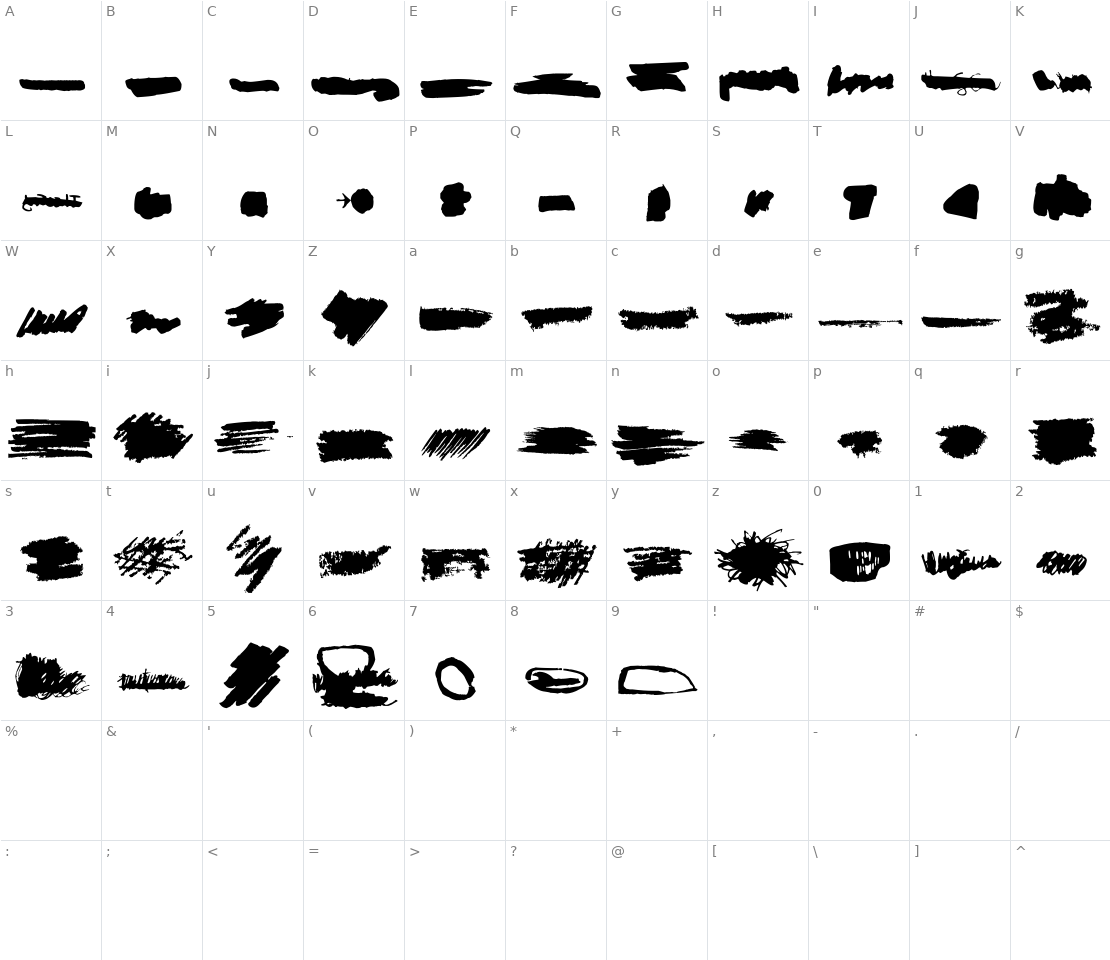
Under
Under is an abstract symbol font from imagex built from loose, gestural brush strokes and ink marks rather than readable letterforms. The characters feel raw and artistic, closer to expressive mark-making than traditional typography. Useful as a decorative element in layouts, posters, or editorial design where you want gritty, hand-painted texture without relying on actual imagery.